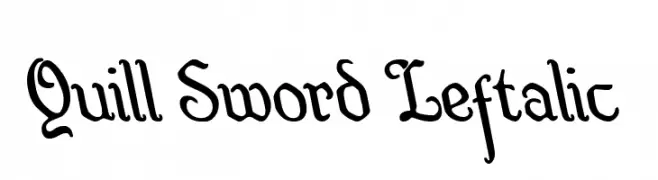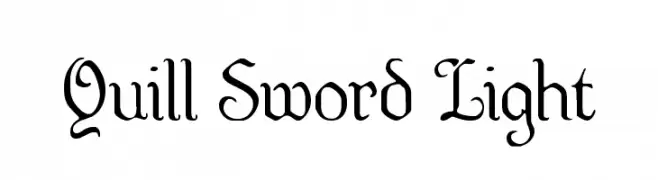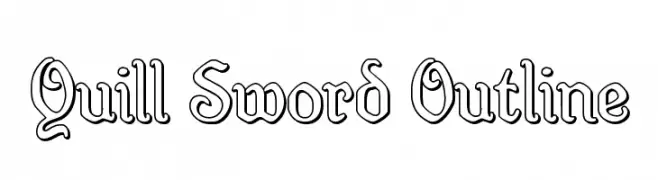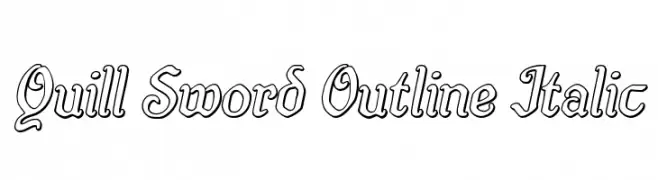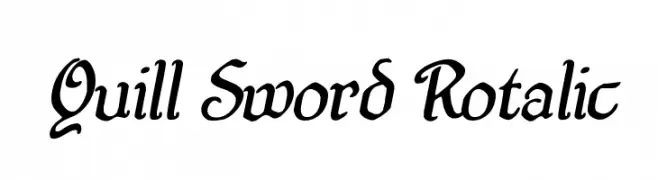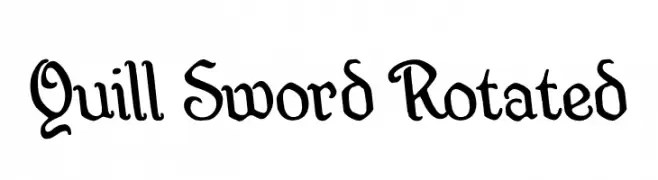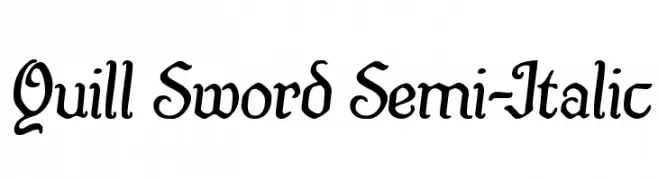
A calligraphic font with elegant, flowing lines and a slight left slant.
A decorative, medieval-inspired font with ornate and intricate letterforms.
A classic, elegant calligraphic font with a modern, italicized twist.
An ornate, medieval-inspired outline font with decorative flourishes.
An elegant, italicized outline font with a decorative, calligraphic style.
An elegant calligraphic font with ornate, flowing strokes.
An ornate, medieval-inspired font with decorative flourishes.
A semi-italic font with calligraphic and medieval influences, featuring ornate and flowing lines.